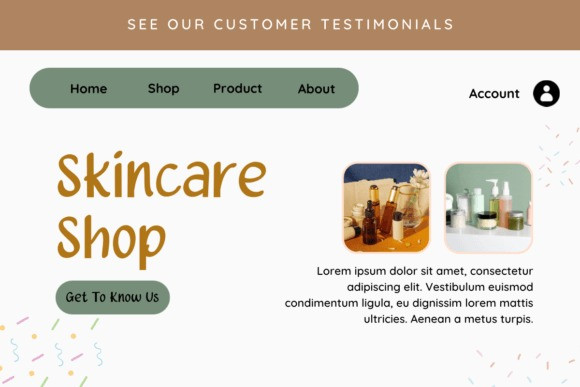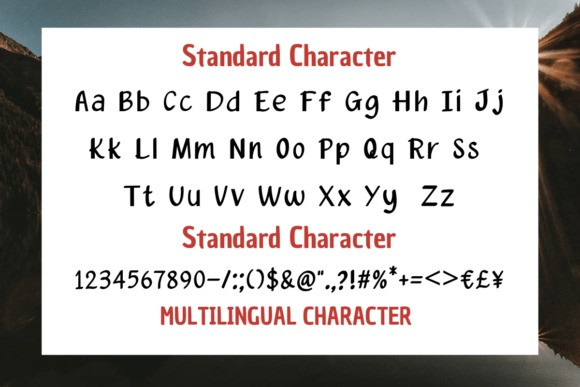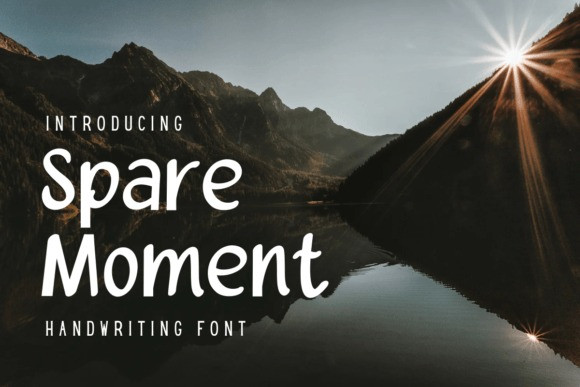
Spare Moment Font
Spare Moment Font, a unique typographic font born from creative breaks, radiates courage and elegance. With its bold design and elegant touch, it suits branding, web, and souvenirs. Its uniqueness and versatility create unforgettable characters, ensuring visual appeal in every application.